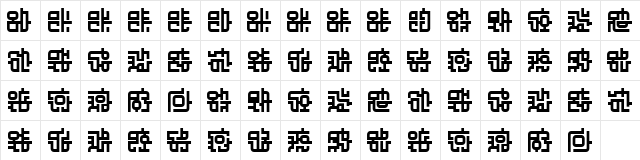
MECCHA_GO Regular
Design Context for MECCHA_GO Typeface
MECCHA_GO is a composed and adaptable typeface that performs quietly and consistently across a wide range of design contexts.